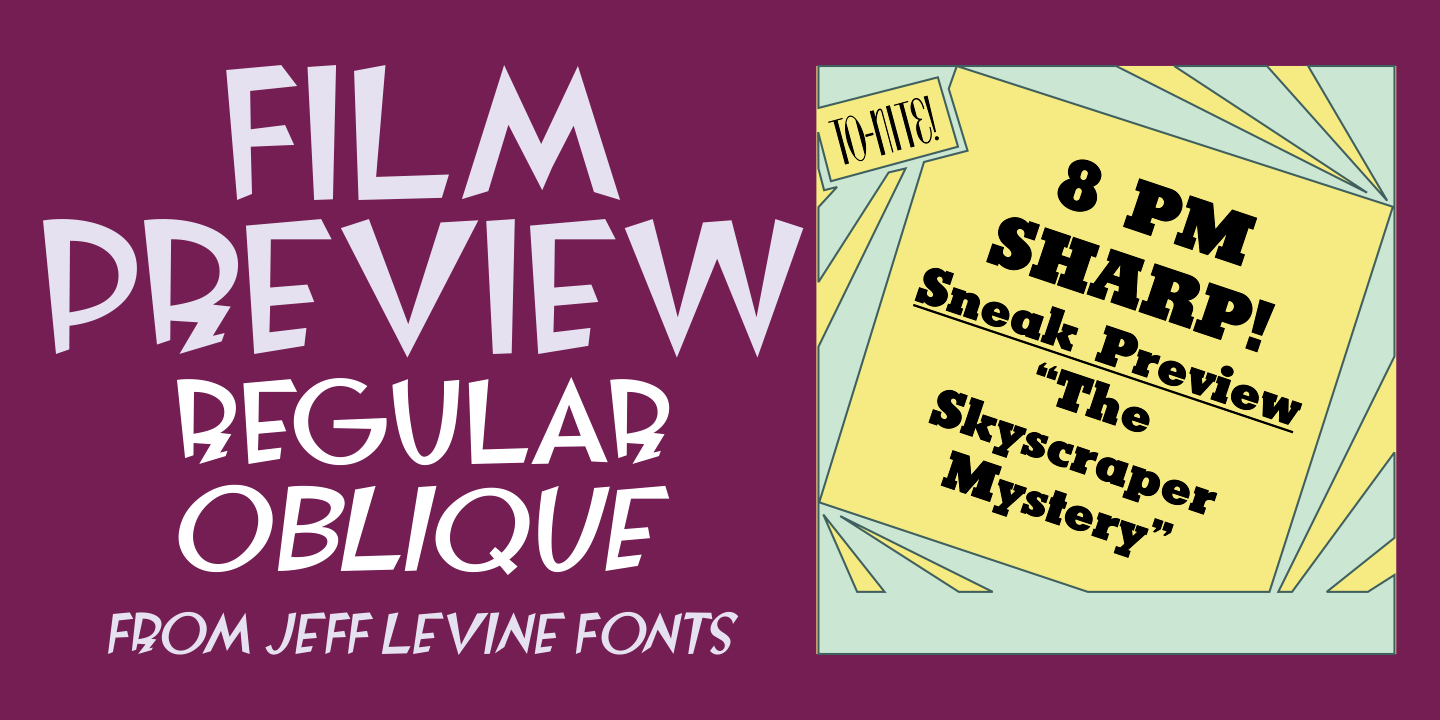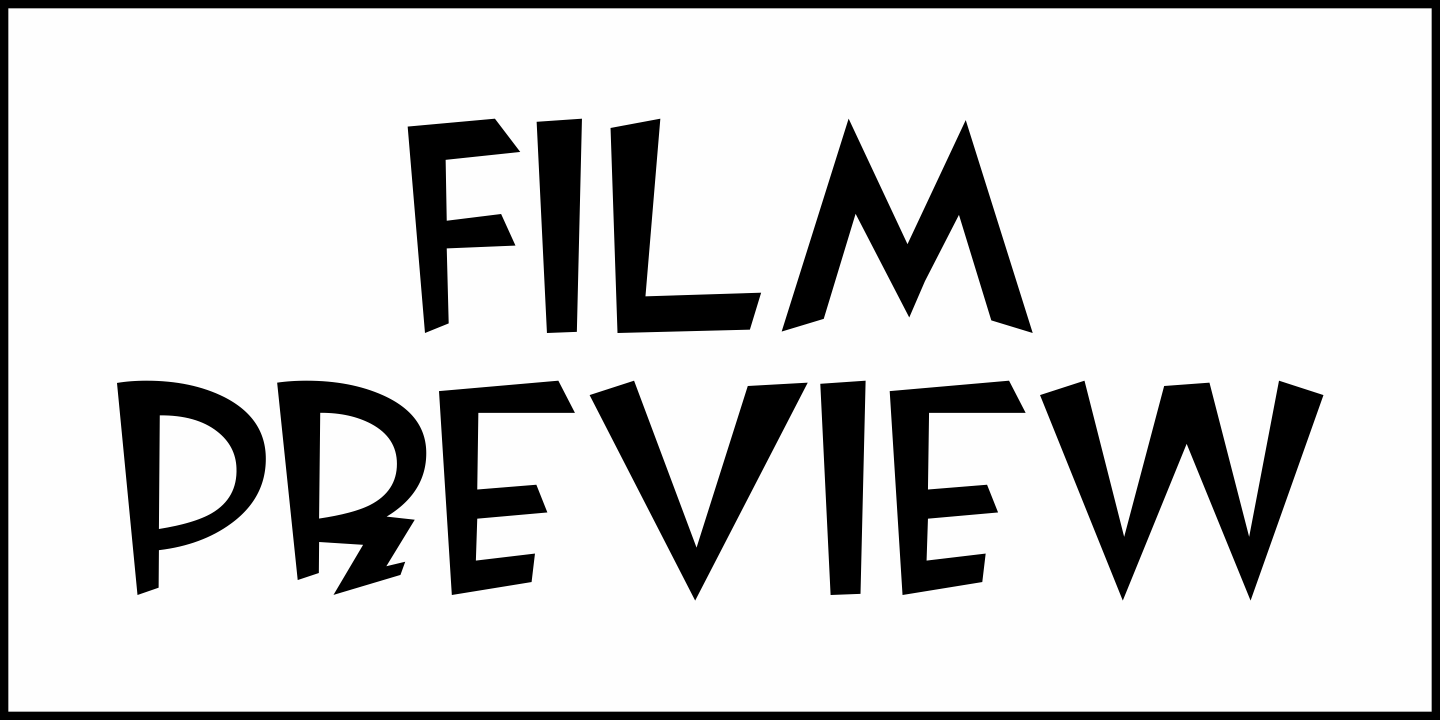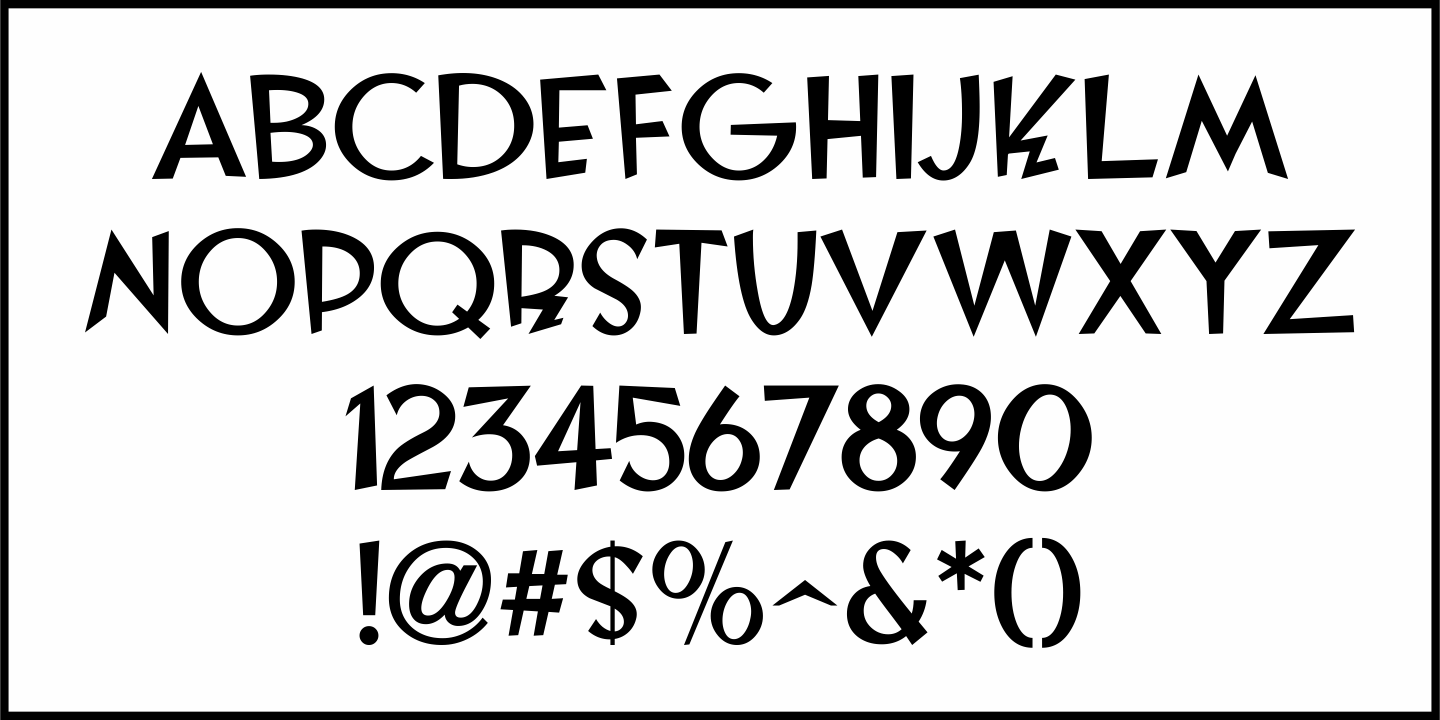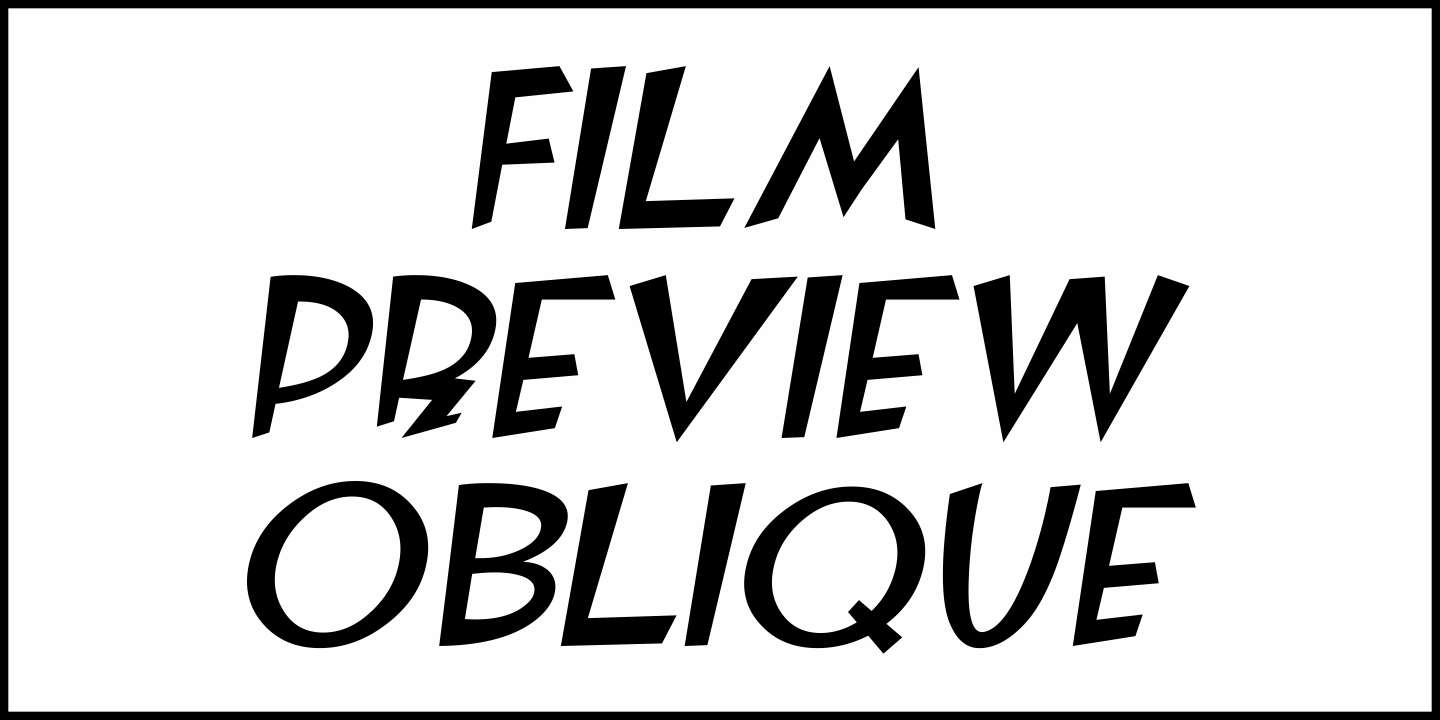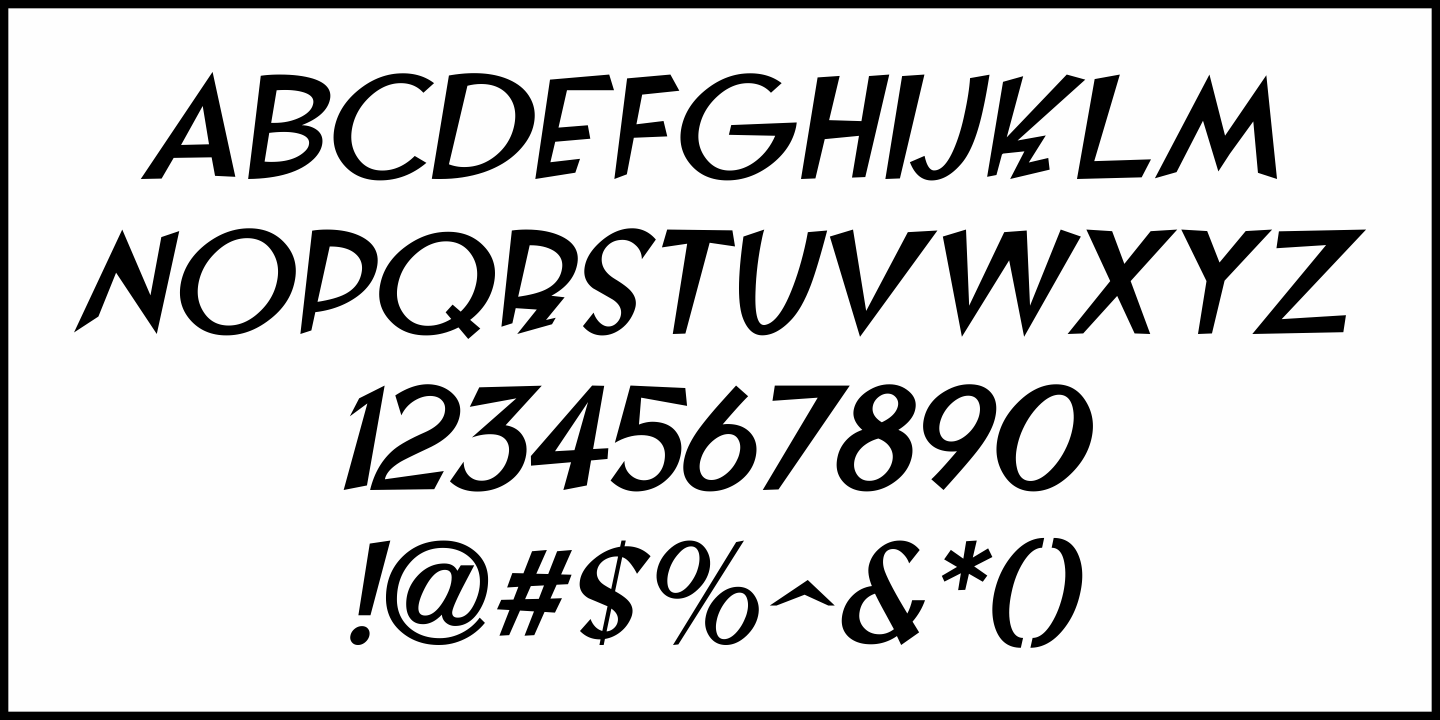
Film Preview
An Oct. 7, 1931 advertisement in a British trade paper for the film industry carried the unusual title 'The Bioscope Peaks of National Approval”.
Just as unusual was the hand lettering for this ad – a quirky, casual bit of novelty typography that inspired Film Preview JNL; available in both regular and oblique versions.